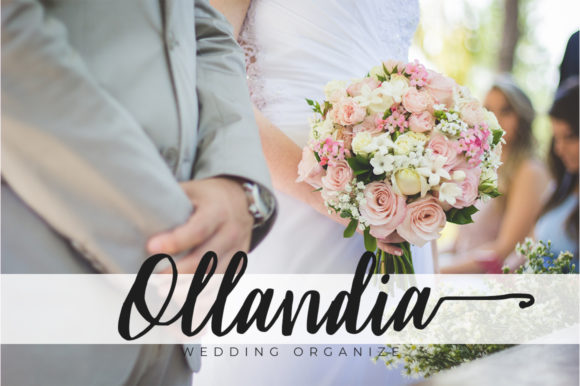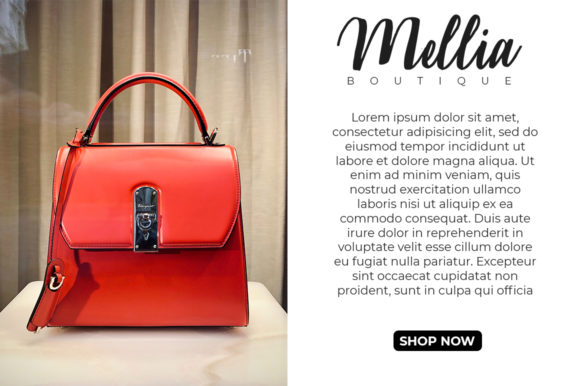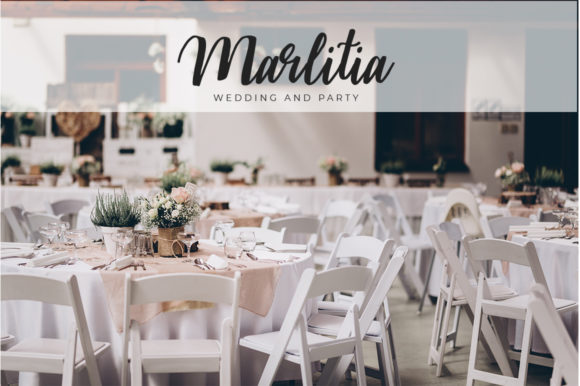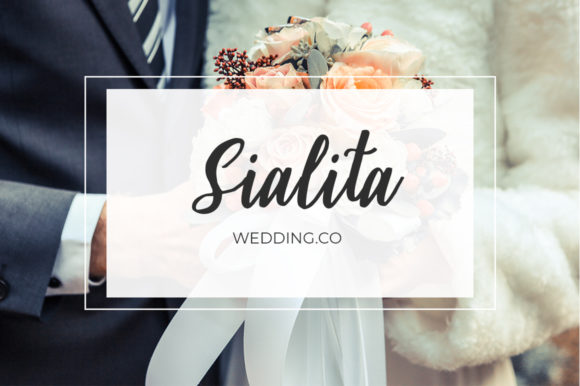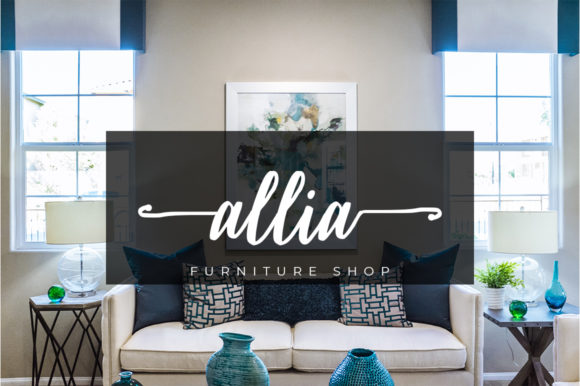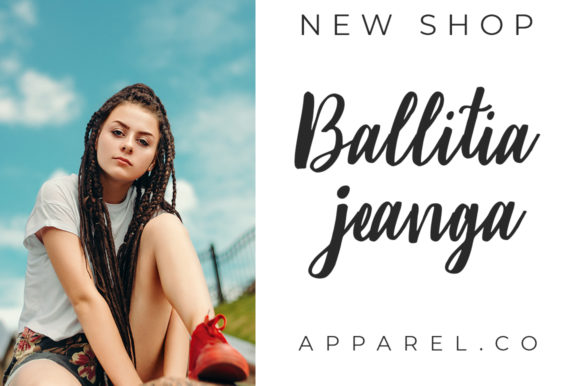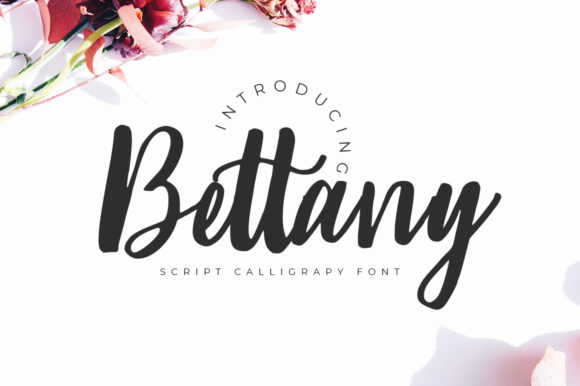
The Elegant Bettany Font: A Designer’s New Best Friend
I’ll never forget the time I was working on a wedding invitation project, and my client asked for a font that was ” elegant, yet playful, and would make their special day feel truly unforgettable.” I scoured the internet, tried out dozens of fonts, but nothing seemed quite right. That was until I stumbled upon the stunning Bettany Font ✨. This beautiful script font has since become a staple in my design toolkit, and I’m excited to share its magic with you!
An Honest Review of Bettany Font
So, what makes Bettany Font so special? Let’s dive into the good stuff!
- ✨ Elegant and stylish: Bettany Font is perfect for adding a touch of sophistication to any design project.
- ✅ PUA encoded: This means you can easily access all the glyphs and swashes, making it a breeze to customize your designs.
- 💕 Perfect for wedding designs: From invitations to thank you cards, Bettany Font makes any wedding-related project feel romantic and luxurious.
- 🎨 Versatile: Use it for quotes, greeting cards, logos, business cards, and more – the possibilities are endless!
Of course, no font is perfect, and Bettany Font has a few minor quirks:
- 🤔 Some users may find the font a bit too ornate for certain projects, but this can also be seen as a pro for those who love the elegant look.
The Story Behind Bettany Font
While the true story behind Bettany Font remains a mystery, it’s easy to imagine that it was created by a designer who wanted to capture the essence of elegant handwriting. Perhaps they drew inspiration from classic calligraphy, combined it with modern typography, and added a dash of creativity. Whatever the story, Bettany Font has become a beloved font among designers and crafters alike.
| Font Name | Bettany Font |
| Is Bettany Font suitable for body text? | While Bettany Font is beautiful, it’s best suited for headings and titles. For body text, consider a more readable font. |
There you have it – a comprehensive guide to the stunning Bettany Font! With its elegant design, versatility, and ease of use, it’s no wonder this font has become a favorite among designers and crafters. Whether you’re working on a wedding invitation, a logo, or a greeting card, Bettany Font is sure to add a touch of sophistication and style to your designs.